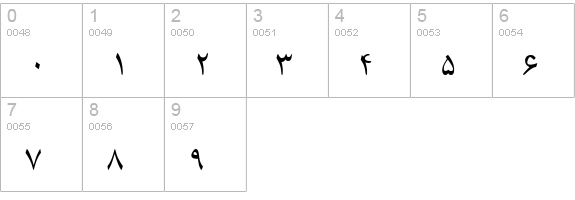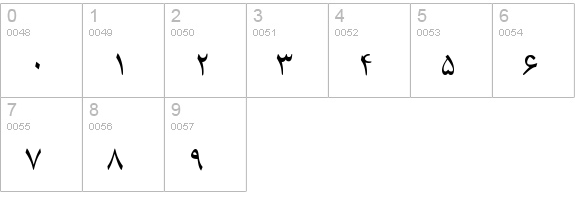
B Compset Font Details
B Compset font is a modern and sophisticated typeface that exudes elegance and professionalism. With its clean lines and sleek design, B Compset is perfect for a wide range of design projects, from branding to editorial layouts. This versatile font is sure to make your text stand out and grab the attention of your audience. What's even better is that B Compset font is available for free download at FontsMarket.com. You can easily access this stylish font and elevate your designs without having to spend a dime. So why wait? Download B Compset font today and add a touch of sophistication to your next project.